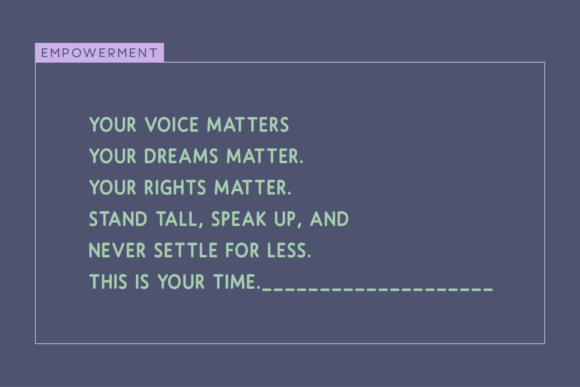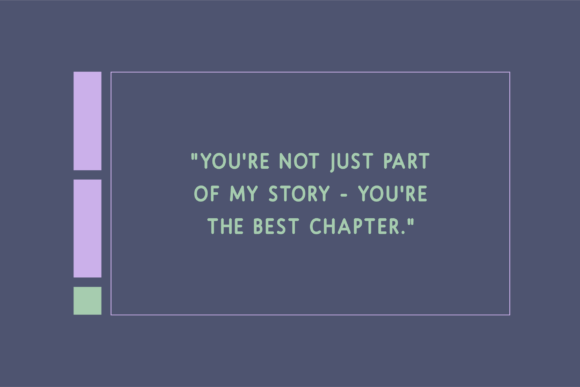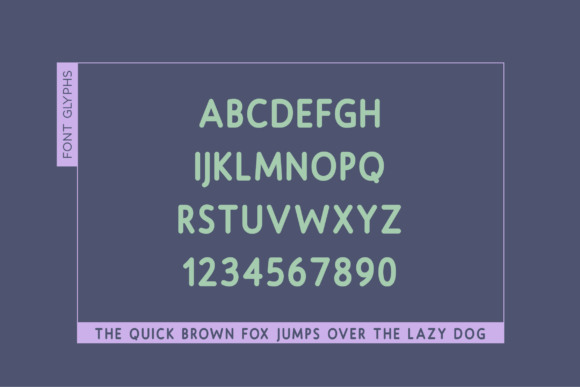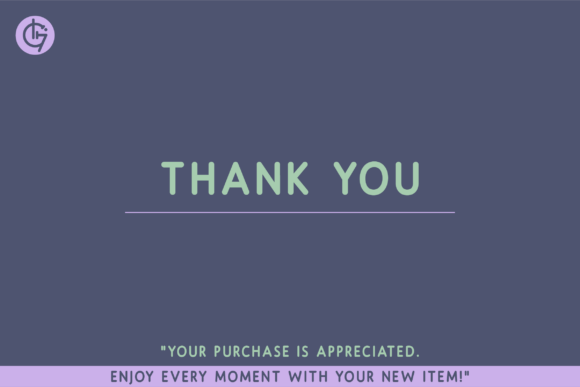
Discover the Whimsical World of Farmind Font
Have you ever been in the middle of a design project, and suddenly, it feels like something’s missing? You’re not quite sure what it is, but you know it’s not quite right. I’ve been there too! I was working on a craft-inspired venture for a client, and I needed a font that would bring a dash of quirk and creativity to the design. That’s when I stumbled upon Farmind Font, and let me tell you, it was love at first sight! 💕
What is Farmind Font?
Farmind is a whimsical all-caps font that brings a unique set of uppercase letters from A-Z, digits 0-9, an array of accented characters, and punctuation to encompass all your typographic needs. Its sleek, smooth aesthetic ensures each creation is captivating and unique. Whether adorning t-shirts, decals, cards, or vibrant invitations, Farmind is an ideal choice for social media assets or craft-inspired ventures.
My Honest Review of Farmind Font
- ✅ Unique and quirky design that adds a touch of personality to any project
- ✅ Wide range of characters, including accented letters and punctuation
- ✅ Sleek and smooth aesthetic that’s perfect for digital and print designs
- ✅ Easy to read, even in larger or smaller sizes
While Farmind Font is an amazing addition to any design project, there are a few things to keep in mind:
- 🤔 Limited to all-caps letters, which might not be suitable for projects that require lowercase text
- ⚠️ Some characters, like the accented letters, might not be immediately apparent in certain design software
The Backstory of Farmind Font
Farmind Font was designed with the creative hobbyist in mind. Its unique design and quirky personality make it perfect for craft-inspired ventures, social media assets, and more. The designer aimed to create a font that would bring a touch of whimsy and charm to any design project.
| Font Name | Farmind Font |
| Author | Goliatte Studio |
Q: Does Farmind Font come with a range of characters?
A: Yes, Farmind Font comes with a wide range of characters, including uppercase letters, digits, accented characters, and punctuation.
Q: Is Farmind Font easy to read?
A: Yes, Farmind Font is easy to read, even in larger or smaller sizes. Its sleek and smooth aesthetic ensures that your designs are always legible and visually appealing.